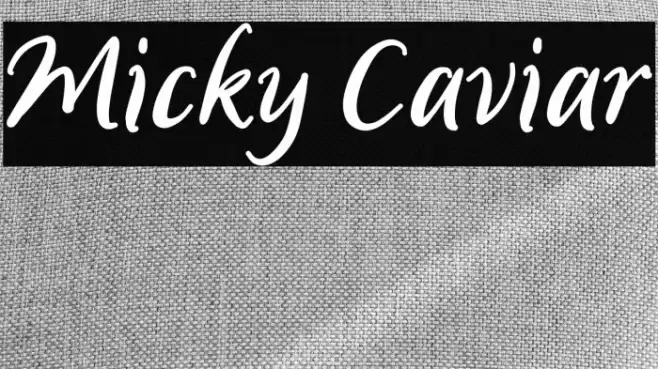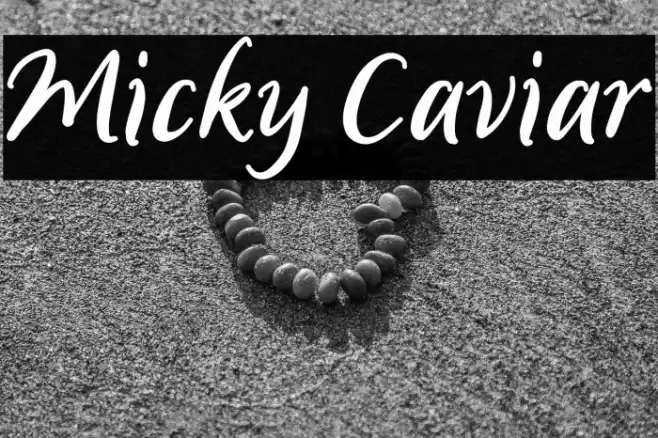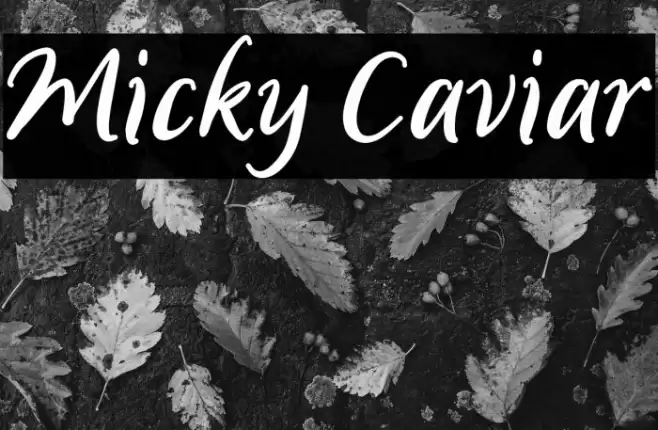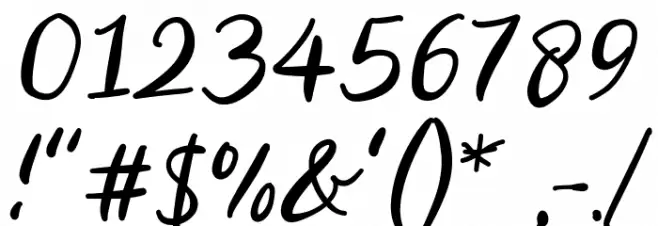
Micky Caviar Font
Micky Caviar Description
This font features a dynamic and fluid script style, characterized by its elegant and flowing letterforms. The uppercase letters exhibit a graceful, slightly slanted appearance, while the lowercase letters maintain a consistent and harmonious flow. The numerals are bold and clear, ensuring readability. Special characters are designed with the same fluidity, adding a cohesive look to the entire set. The overall impression is one of sophistication and artistic flair, making it suitable for creative and expressive projects.
A fluid and elegant script font with dynamic letterforms from Uncategorized fonts.
- Proposed Projects: Ideal for wedding invitations, greeting cards, branding, and artistic projects that require a touch of elegance.